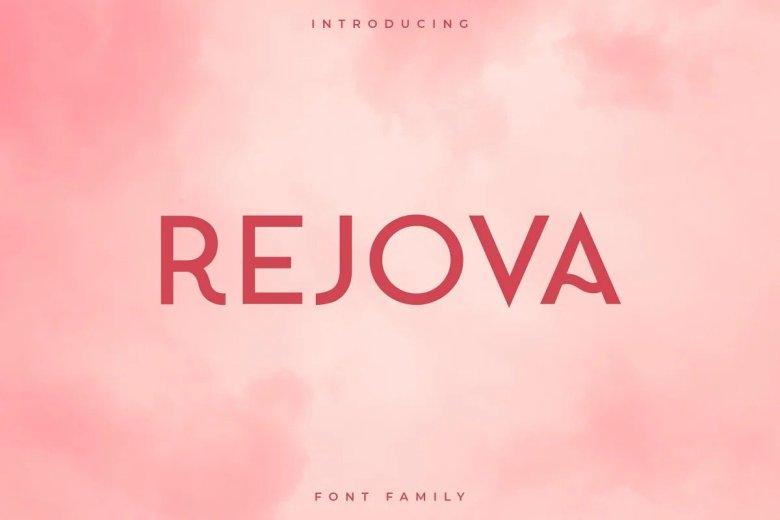
Rejova Font
Rejova is an elegant, timeless, and stunning all caps sans serif font that looks beautiful in layouts, headers, web, and many other contexts! Rejova is perfect for magazine layouts, invitations or any other project you’re working on!